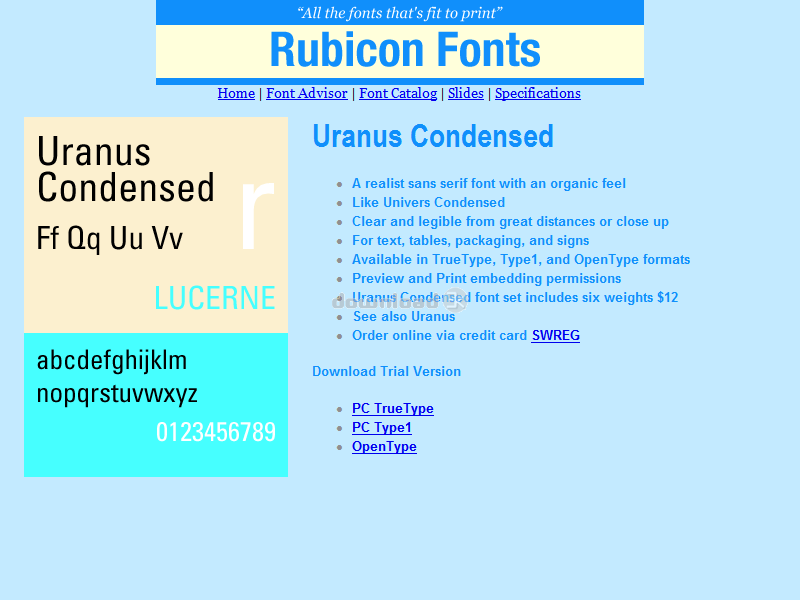
"Realist sans serif font, organic look"
Condensed realist sans serif font with an organic feel. Like Univers Condensed. A clear typeface that's legible from great distances or close up. Fit more text into restricted spaces without losing legibility. Great for tables, headlines, packaging, and signs. Use in any size. Accurate and hinted, matching font metrics, standard character set, kerning pairs. Professional print quality for inkjet, laser, typesetter to 3500 dpi. Purchasers receive 6 font variants as follows: Light, Light Oblique, Normal, Oblique, Bold, Bold Oblique.Requirements: No special requirements.